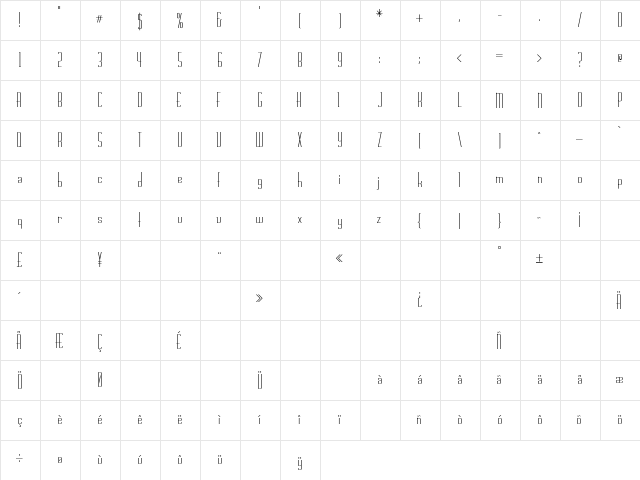
PCCalamero Regular
Design Context for PCCalamero Typeface
PCCalamero offers clean, dependable letterforms without strong stylistic allegiance, making it a practical choice for designers who need flexibility.